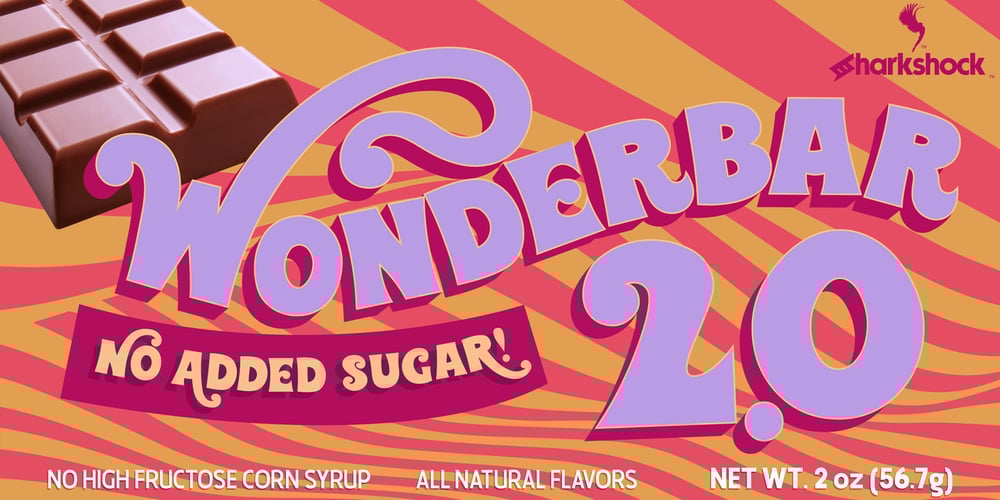
Wonderbar 2 Font Family was designed by Dennis Ludlow and published by Sharkshock. Wonderbar 2 contains 1 styles and family package options. Wonderbar 2 is wacky, retro, and not to be taken too seriously. The wavy nature throughout the characters ensure that you’re in for a wild ride. Alternating between upper and lowercase letters is like shifting gears. Uppercase characters take on a more undulating flow with stems that reach out to tickle you. Because of this slight overlap should be expected. In addition to Latin this childlike display font is equipped with Extended Latin for many European languages as well as Cyrillic. Try it in a children’s book, poster, or birthday invitations.